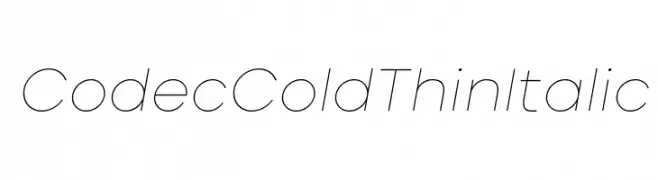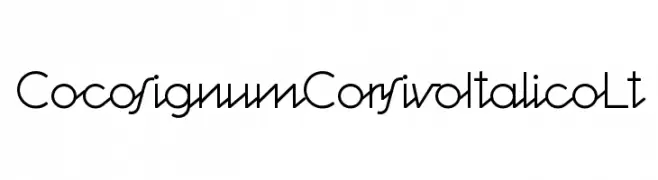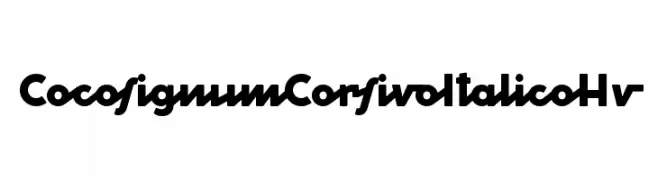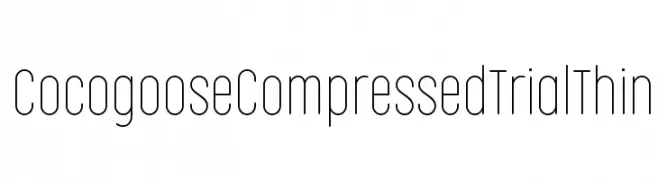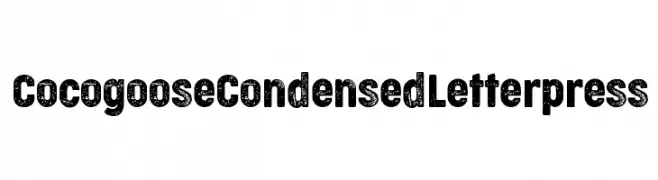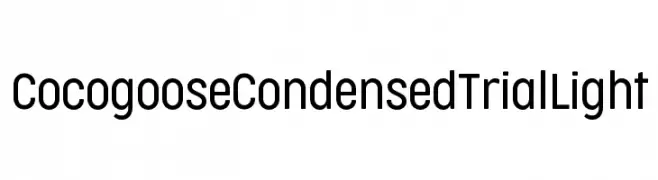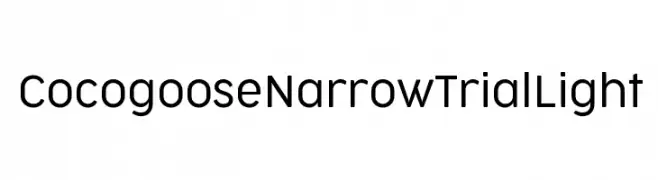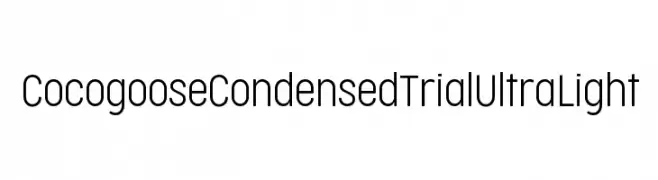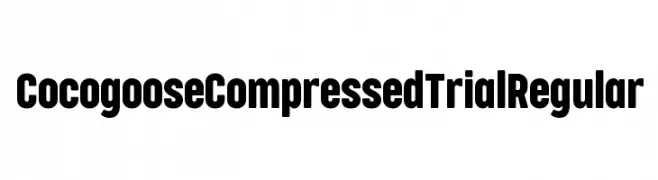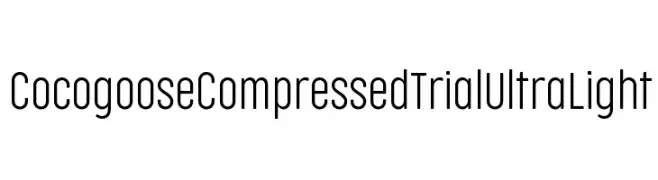
A sleek, modern, thin italic font with a minimalist aesthetic.
A bold, geometric font with a modern and heavy style.
A modern, geometric typeface with smooth, rounded edges and consistent stroke width.
A modern, geometric sans-serif font with bold, clean lines.
A sleek, ultra-light typeface with geometric lines and minimal contrast.
A bold, geometric font with sharp lines and a modern aesthetic.
A sleek, modern cursive font with thin, elegant lines.
A modern, geometric font with consistent stroke thickness and high legibility.
A bold, modern font with geometric uppercase and cursive lowercase letters.
A bold, italic font with a modern and dynamic style, perfect for impactful headlines.
A modern geometric font with a dynamic slant and cursive lowercase.
A modern, narrow sans-serif font with a clean and professional look.
A modern, thin, and compressed font with a sleek, vertical design.
A bold, condensed font with a textured letterpress effect, ideal for vintage and industrial designs.
A modern, condensed sans-serif font with a light weight and geometric design.
A sleek, ultra-light, and modern narrow font with clean lines.
A modern, narrow sans-serif font with a clean and sleek design.
A sleek, modern, and ultra-light condensed font ideal for contemporary designs.
A bold, compressed typeface with a modern and cohesive design.
A modern, ultra-light, condensed font with a minimalist design.
A bold, modern, and condensed font ideal for impactful headlines.
A modern, condensed font with bold, uniform strokes and high legibility.
A modern, thin, and narrow font with clean lines and a minimalist aesthetic.
A bold, distressed font with a vintage letterpress effect and narrow, textured characters.
A modern, compressed font with a sleek and uniform design.
A bold, modern sans-serif font with a compressed width and clean, geometric design.
A bold, distressed font with a vintage letterpress style.
A modern, thin, and condensed font with a sleek geometric design.
A bold, modern typeface with clean, geometric lines and a slightly condensed style.
A bold, compressed font ideal for impactful headlines.
A modern geometric sans-serif font with clean lines and uniform stroke width.
A modern, semi-light italic sans-serif font with a sleek and dynamic style.
A sleek, ultra-light italic font with a modern and elegant style.
A modern, light, and italic sans-serif font with clean lines and elegant curves.
A bold, modern italic font with geometric shapes and clean lines.